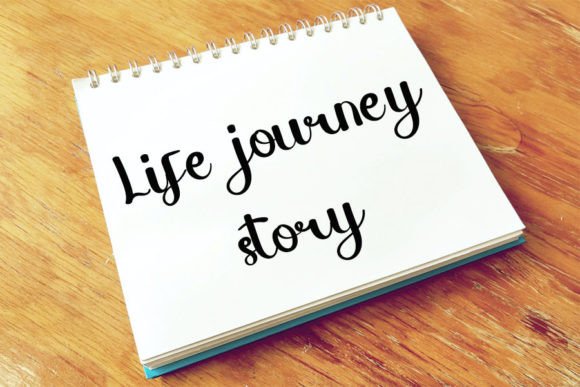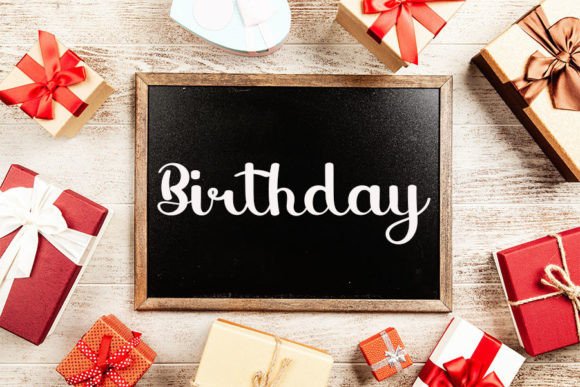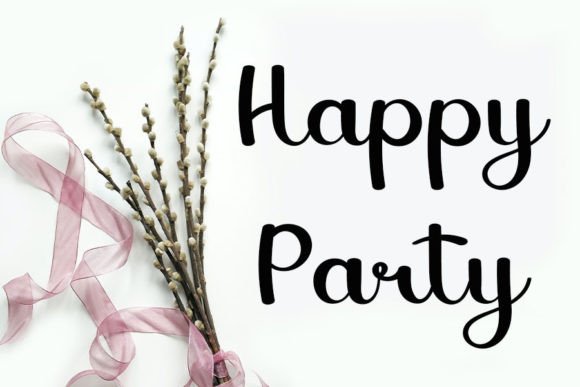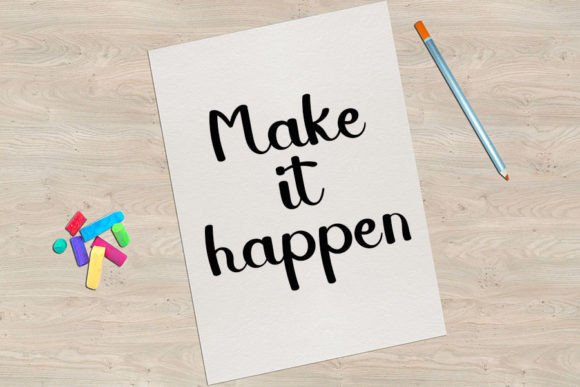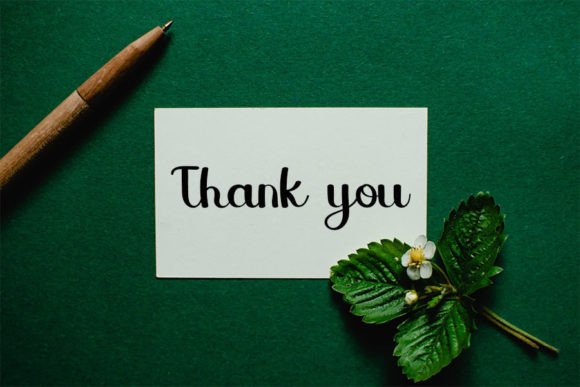
Cute Montage Font: Elevate Your Designs with a Touch of Elegance
In the world of design, typography plays a crucial role in conveying the tone and personality of a brand or project. A well-chosen font can make all the difference in creating a lasting impression on your audience. If you’re a designer, crafter, or DIY enthusiast looking for a font that exudes elegance and quirkiness, look no further than Cute Montage. This friendly handwritten font is carefully crafted to add a touch of sophistication to your logos, branding, social media posts, and crafty projects.
What is Cute Montage Font?
Cute Montage is a beautiful, handwritten font designed with a dash of elegance and a pinch of playfulness. Its clean lines and quirky flair make it an ideal choice for designers and crafters seeking a unique and versatile font. Whether you’re creating a logo, social media post, or DIY project, Cute Montage is the perfect fit.
Key Features of Cute Montage Font
- Handwritten with love: Cute Montage is carefully crafted with a personal touch, giving it a warm and friendly feel.
- Elegant and quirky: This font seamlessly blends sophistication with playfulness, making it perfect for a wide range of design projects.
- Clean and legible: Cute Montage features clean lines and clear lettering, ensuring that your text is easy to read and understand.
- Versatile: This font is suitable for various design applications, including logos, branding, social media posts, and DIY projects.
Use Cases for Cute Montage Font
Cute Montage is an incredibly versatile font that can be used in a variety of design projects. Here are some ideas to get you started:
- Logos and branding: Create a lasting impression with a custom logo or branding materials that showcase your unique personality.
- Social media posts: Elevate your social media presence with eye-catching graphics and typography that sets you apart.
- DIY projects: Add a personal touch to your crafty projects, such as handmade cards, invitations, or scrapbooking.
- Stationery and paper goods: Create beautiful stationery, journals, or paper crafts that feature the elegant and quirky style of Cute Montage.
Tips for Using Cute Montage Font
To get the most out of Cute Montage, here are some tips to keep in mind:
- Experiment with sizes and colors: Play around with different font sizes and colors to create visual interest and hierarchy.
- Mix and match with other fonts: Combine Cute Montage with other fonts to create a unique and harmonious typography scheme.
- Use it for headlines and titles: Take advantage of Cute Montage’s elegant and quirky style to create eye-catching headlines and titles.
Cute Montage Font is a beautiful, handwritten font that offers a perfect blend of elegance and quirkiness. Its versatility and legibility make it an excellent choice for designers, crafters, and DIY enthusiasts looking to elevate their designs. Whether you’re creating a logo, social media post, or DIY project, Cute Montage is sure to add a touch of sophistication and personality to your work.